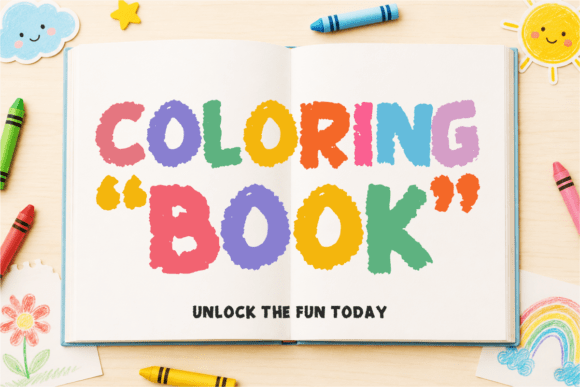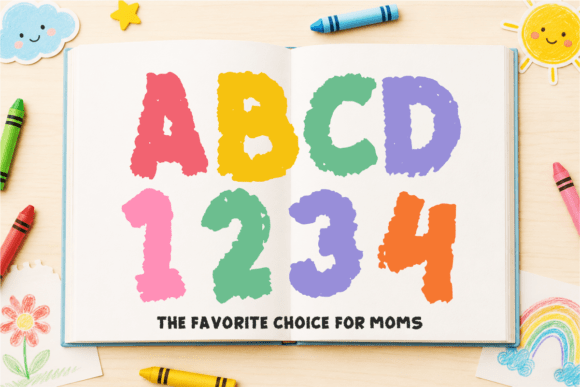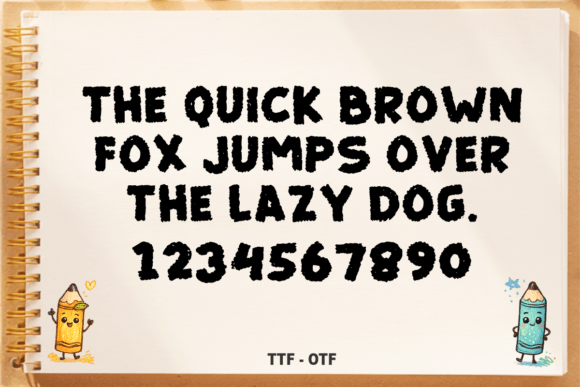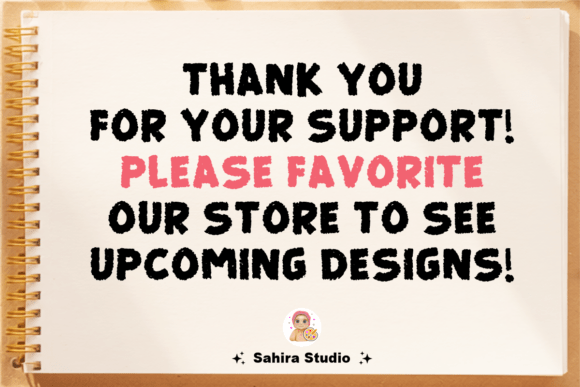
🖍️ Bold Crayon – Playful & Textured Kids Font 🖍️
Hello, wonderful crafters, teachers, and creative designers! 👋 Bring the bright, joyful energy of a children’s coloring book into your next project with Bold Crayon—the ultimate hand-drawn display font that is delightfully chunky and incredibly easy to read! 🎨✨
The Design Moment That Stole My Heart
I still remember the exact moment I fell in love with Bold Crayon. I was working on a project for a client who needed a fun, playful font for their kids’ educational materials. I had spent hours scouring the internet for the perfect font, but nothing seemed quite right. That was until I stumbled upon Bold Crayon. The moment I saw it, I knew I had found what I was looking for. The thick, heavy letterforms and authentically textured, sketchy edges immediately caught my eye. I couldn’t wait to dive in and start creating with it!
• ✨ The unique, hand-drawn texture that gives it a real, crayon-drawn feel
• ✅ The clean, high-impact legibility that makes it perfect for kids’ materials
• 🎨 The versatility – it can be used for everything from educational tools to colorful merchandise
• 🌈 The instant splash of cheer and warmth it adds to any canvas
While Bold Crayon is an amazing font, there are a few things to keep in mind. ⚠️ Some users may find that the font can be a bit too bold for certain projects, and it may not be suitable for very small text sizes. 🤔 Additionally, the font’s texture and sketchy edges may not render as well in certain digital formats.
One of the best things about Bold Crayon is its OpenType features and glyphs. The font includes a range of stylistic alternates and glyphs that can be used to add extra creativity and personality to your designs. For example, you can use the font’s built-in swashes and flourishes to add a touch of whimsy to your text.
The Backstory Behind Bold Crayon
Bold Crayon was inspired by the simple joys of childhood – specifically, the feeling of coloring with crayons. The font’s designer wanted to capture the bright, playful energy of a children’s coloring book and bring it to life in a digital font. The result is a font that’s perfect for kids’ materials, educational tools, and colorful merchandise.
What is Bold Crayon? Bold Crayon is a hand-drawn display font inspired by real wax crayon drawings. It’s perfect for kids’ materials, educational tools, and colorful merchandise.
Is Bold Crayon easy to read? Yes! Bold Crayon is designed to be clean and highly legible, making it perfect for kids’ materials and educational tools.
Does Bold Crayon include OpenType features? Yes! Bold Crayon includes a range of OpenType features and glyphs, including stylistic alternates and swashes.